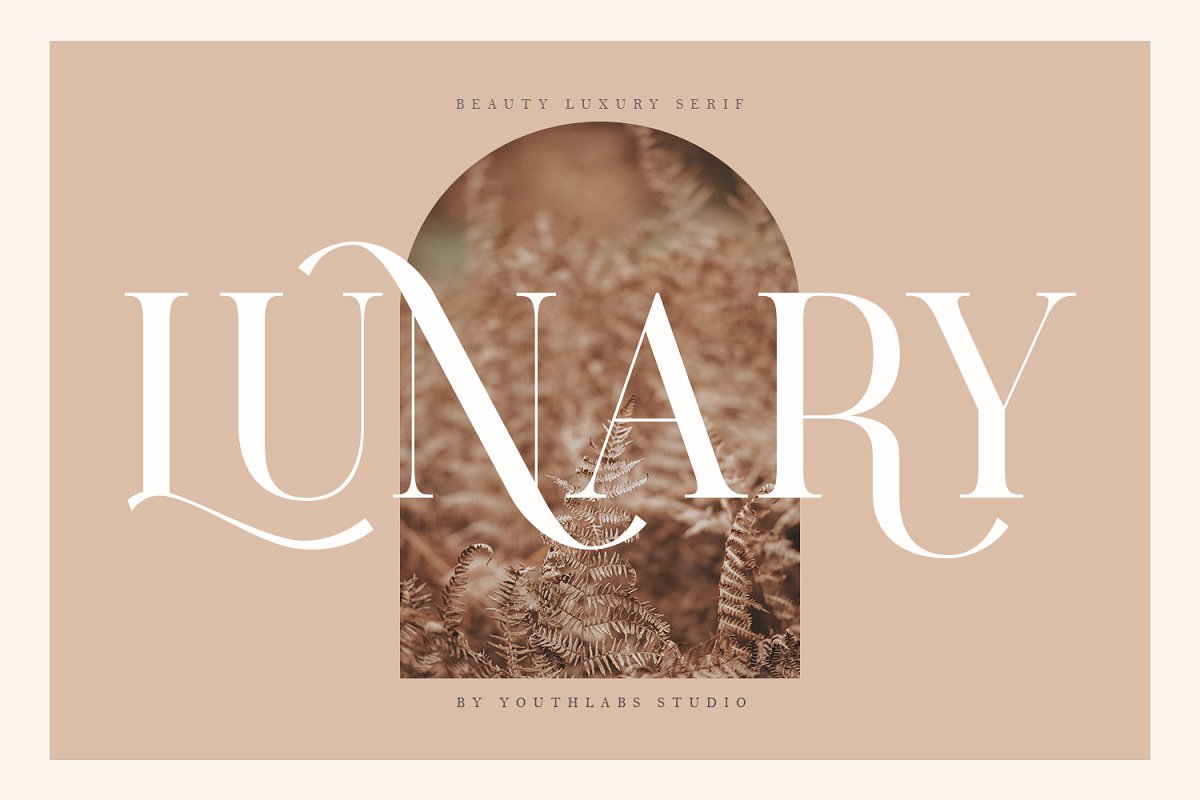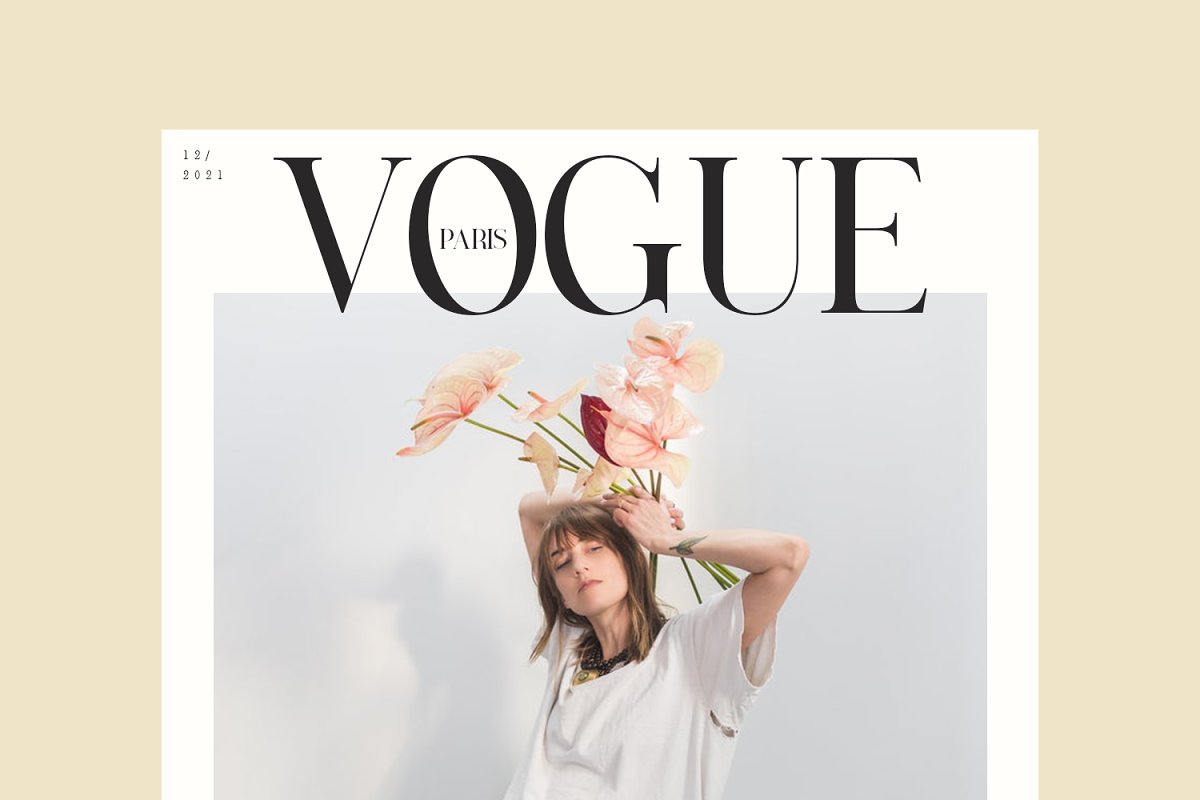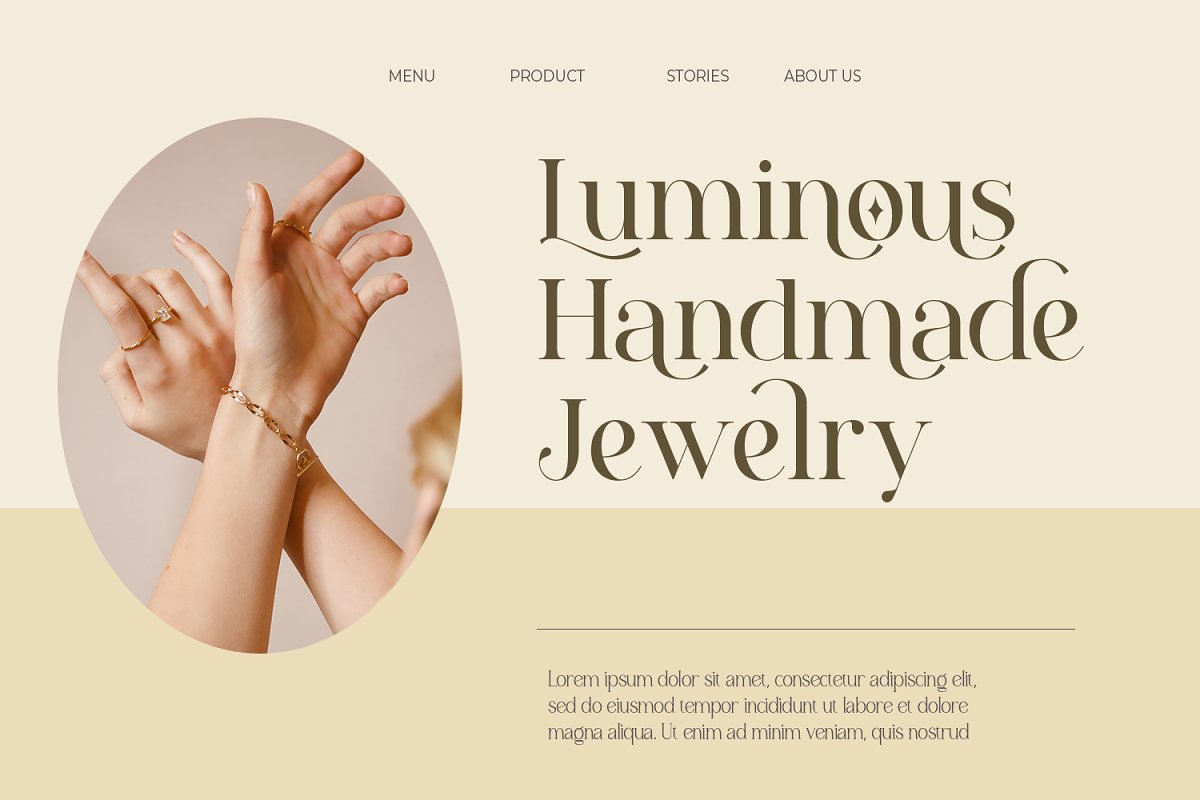
About the LUNARY Beauty Elegant Serif Font
LUNARY font is a serif font that gives off a beauty luxury font, It looks so good for fashion brand logo, With many alternative fonts, LUNARY will make it easier for you to use various design functions,be it for logos, typography, magazine, fashion, branding, advertising, and more, What’s Include ?LUNARY , otfLUNARY , ttfLUNARY , woffWhat’s the Feature ?Uppercase LowercaseAlternatesLigaturesMultilingualsNeed to test words in this font? Just type the box below, and see what it looks likeFor more information on accessing alternative flying machines, you can see this link (http://adobe